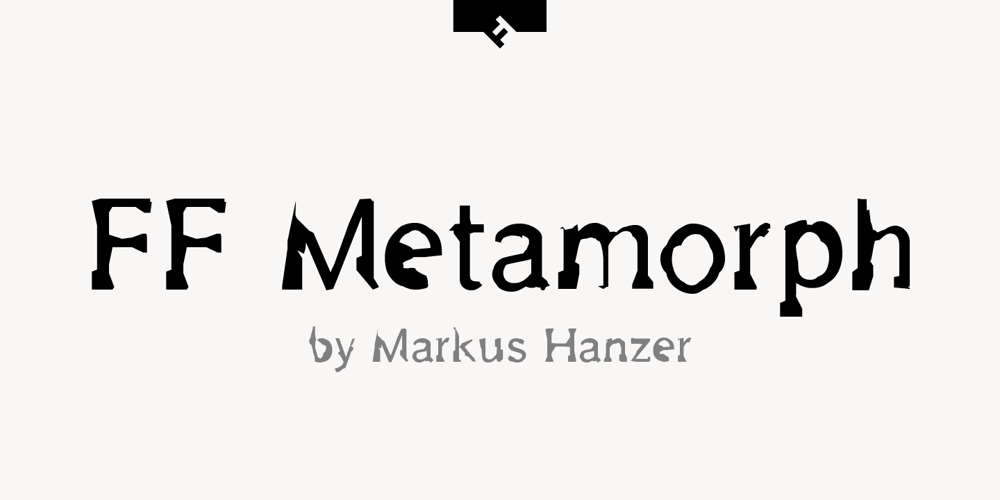
FF Metamorph
FF Metamorph font
FF Metamorph Font Family was designed by Markus Hanzer and published by FontFont. FF Metamorph contains 1 styles and family package options. Austrian type designer Markus Hanzer created this display FontFont in 1994. The font is ideally suited for advertising and packaging, music and nightlife as well as poster and billboards. FF Metamorph provides advanced typographical support with features such as ligatures, alternate characters, and case-sensitive forms. It comes with proportional oldstyle figures.